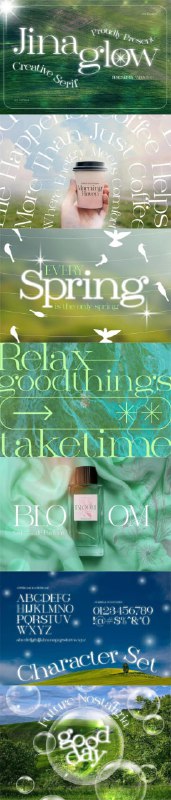
Jina Glow Serif Font VHDLTKV
Elevate your designs with Jina Glow Serif Font, a modern font perfect for adding elegance and style to your projects. Whether its for quotes, logotypes, magazine headers, or more, this versatile typeface ensures your text stands out beautifully.
Main Features
* Uppercase & Lowercase characters
* Numeral & Punctuations